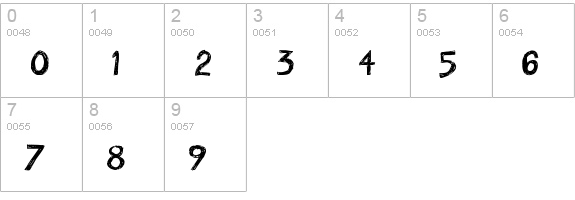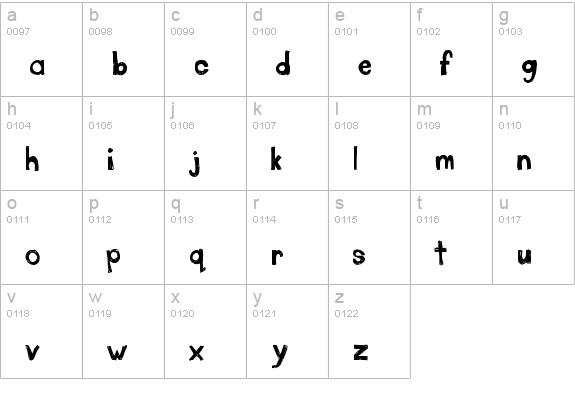
take_out_the_garbage Font Details
Introducing the exquisite take_out_the_garbage font, a whimsical and playful typeface that is perfect for adding a touch of fun to your designs. This font features quirky shapes and unique characters that will surely make your text stand out. The take_out_the_garbage font is freely available to download at FontsMarket.com, allowing you to easily incorporate this delightful typeface into your projects. Whether you're designing posters, invitations, or social media graphics, this font will add a charming and creative touch to your work. Don't miss out on the opportunity to enhance your designs with the take_out_the_garbage font today!